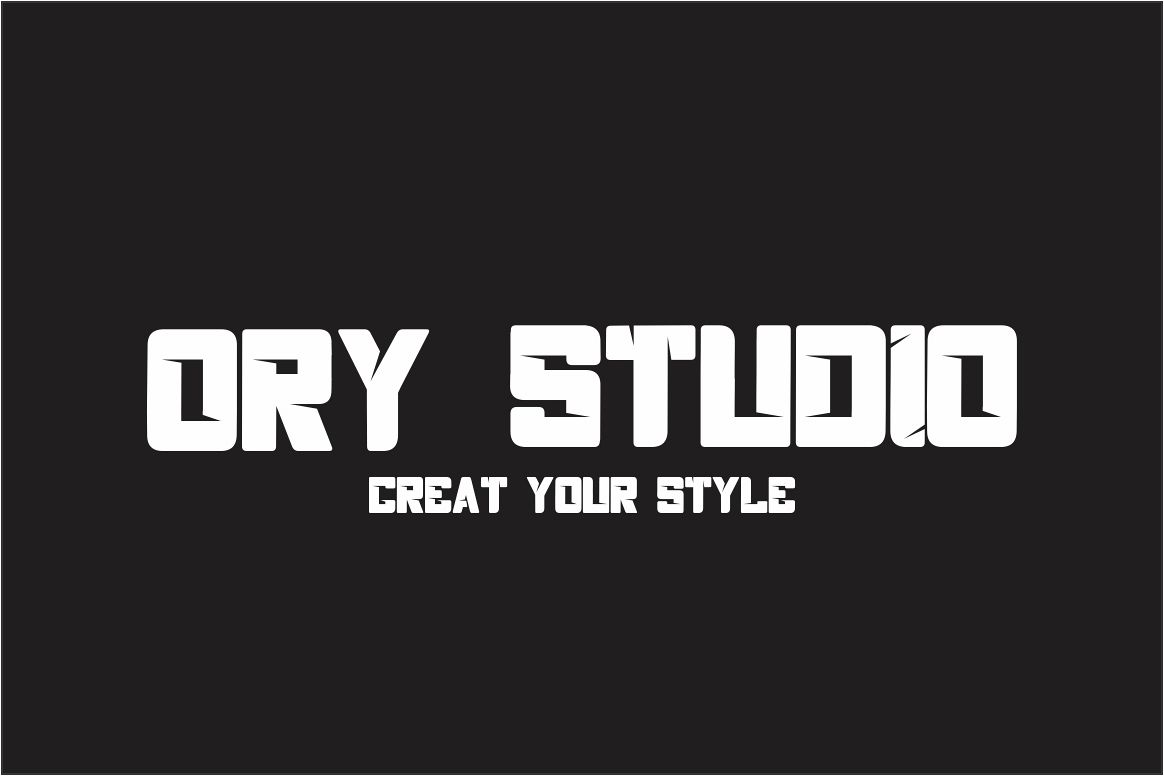
racing font
A fun stackable display font that lives up to it's name. The way you can uniquely stack different parts of this font make it super fun to work with :) Perfect for all purposes. Pairs well with bold sans serifs.
ORY STUDIO features:
THIS ENTIRE FONT IS CAPITALIZED
- Uppercase variations
- Lowercase variations
- Numbers
- Special Characters